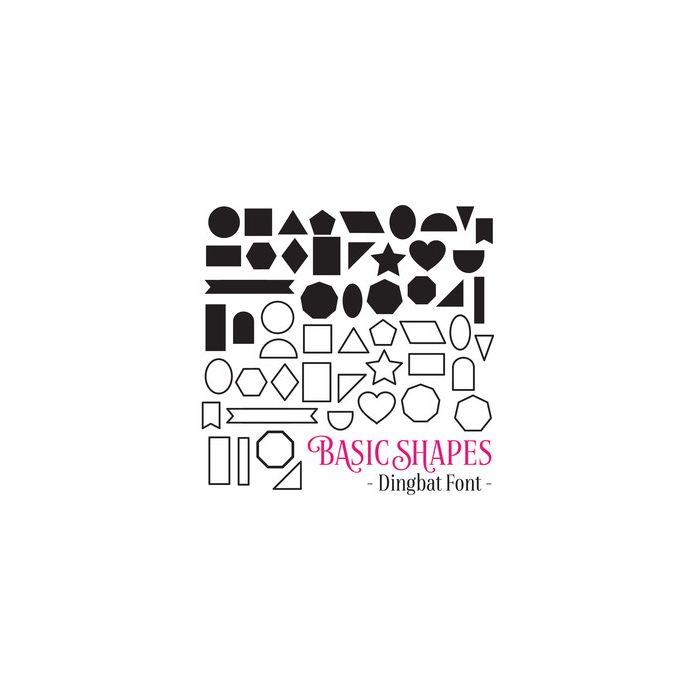
Basic Shapes Dingbat Font. Contains 26 Solid Shapes and 26 Outline Shapes all allocated to upper and lowercase letters as well as being accessible via the glyphs panel. Find the rest of my fonts here in the Silhouette store!